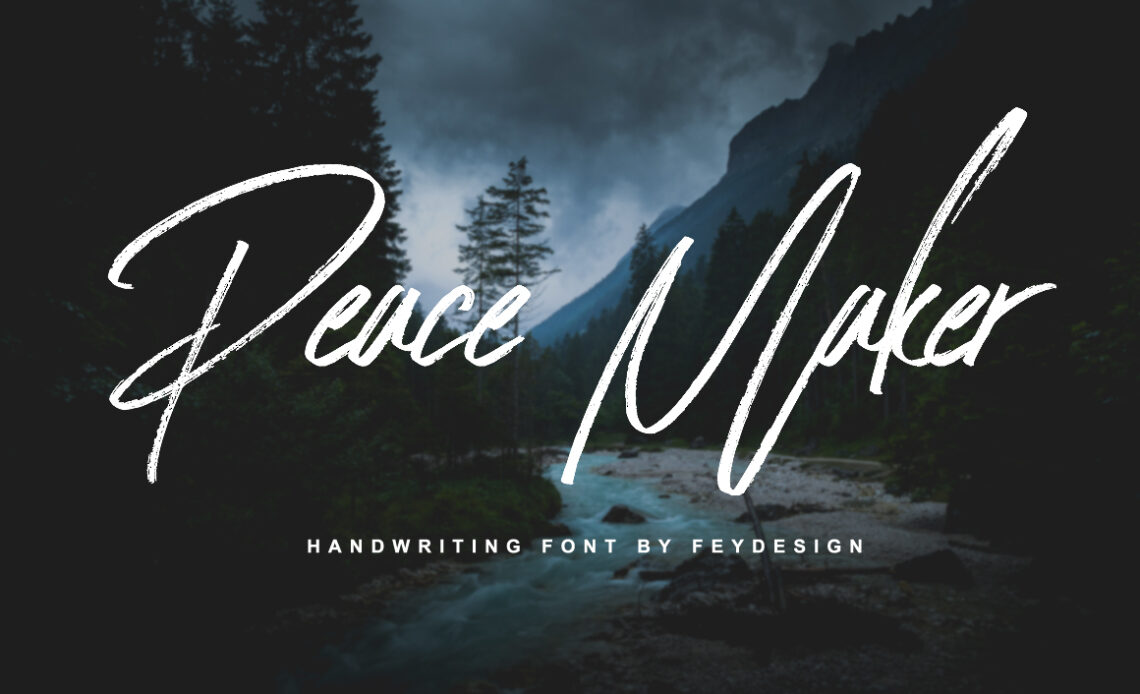
Welcome to the realm of Peace Maker Font, a spectacular script font that will enchant your creative projects with its captivating charm. This breathtaking dry brush stroke font is meticulously crafted by feydesign, a renowned artist known for creating fonts that resonate with both elegance and modernity. The Peace Maker Font family is a symphony of visual delight, specifically designed to elevate the impact of your headlines and signature styled designs.
Unleash your creativity and let Peace Maker Font be your guiding light as you embark on a journey of visual expression. Whether you're a seasoned graphic designer or a budding artist, this font will effortlessly elevate your projects with its unique blend of boldness and casual flair. Peace Maker Font is not just a mere font; it's an experience that will ignite your imagination and leave a lasting impression on your audience.
With Peace Maker Font, you can effortlessly craft captivating logos, mesmerizing branding designs, eye-catching social media posts, and stunning invitations that radiate personality and sophistication. Its carefully crafted strokes evoke a sense of authenticity and artistry, making it the perfect choice for adding a touch of individuality to any project.
Immerse yourself in the world of typography and discover the endless possibilities that Peace Maker Font holds. Let your designs speak volumes with its distinctive character, inspiring your audience and leaving them captivated by your creative vision. Peace Maker Font is more than just a collection of letters; it's a gateway to a world of creative expression, where your imagination knows no bounds.
Indulge in the beauty of Peace Maker Font and unlock the potential of your creative genius. Let your designs radiate with confidence, originality, and a touch of artistic magic. Embrace the power of this remarkable font and transform your projects into masterpieces that leave an unforgettable mark.